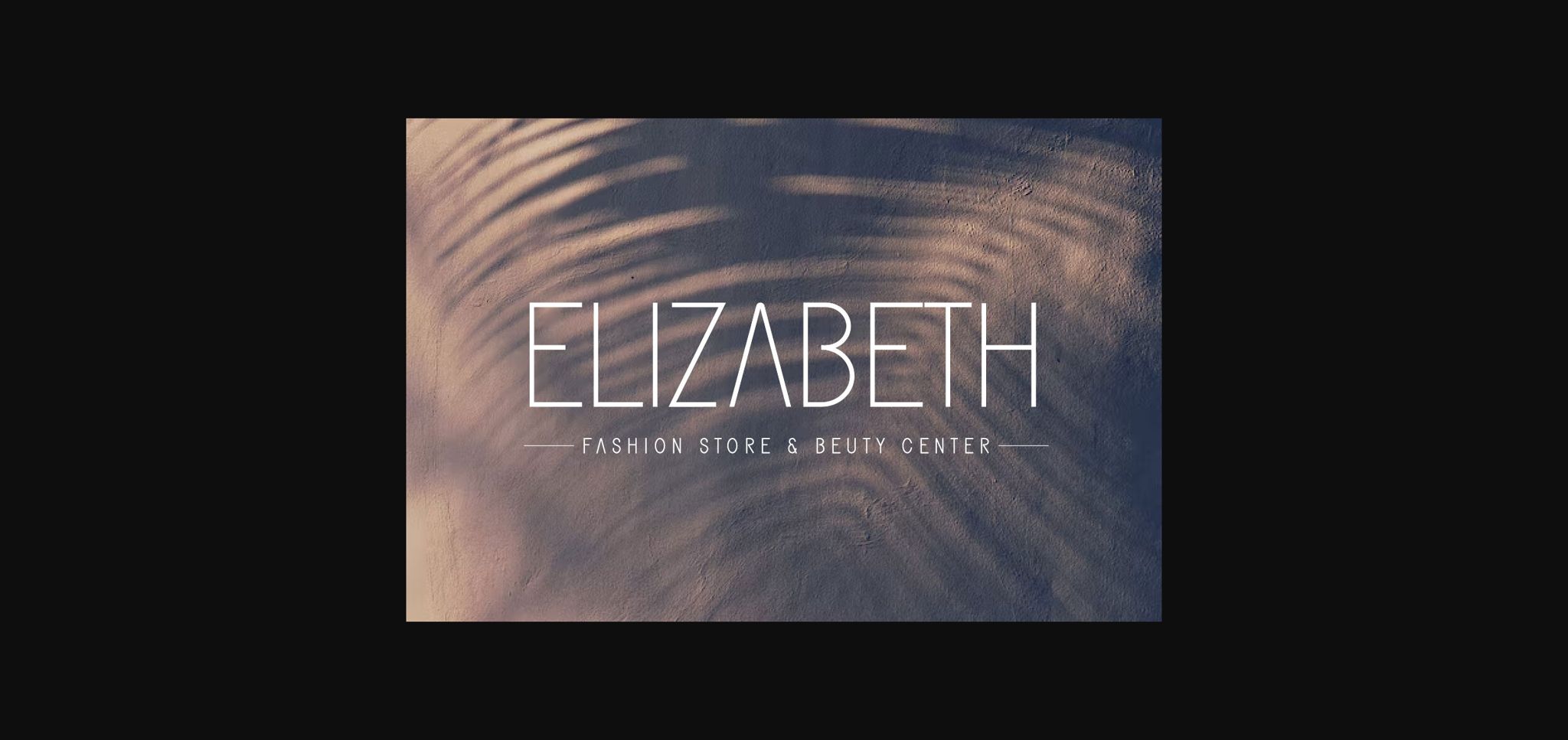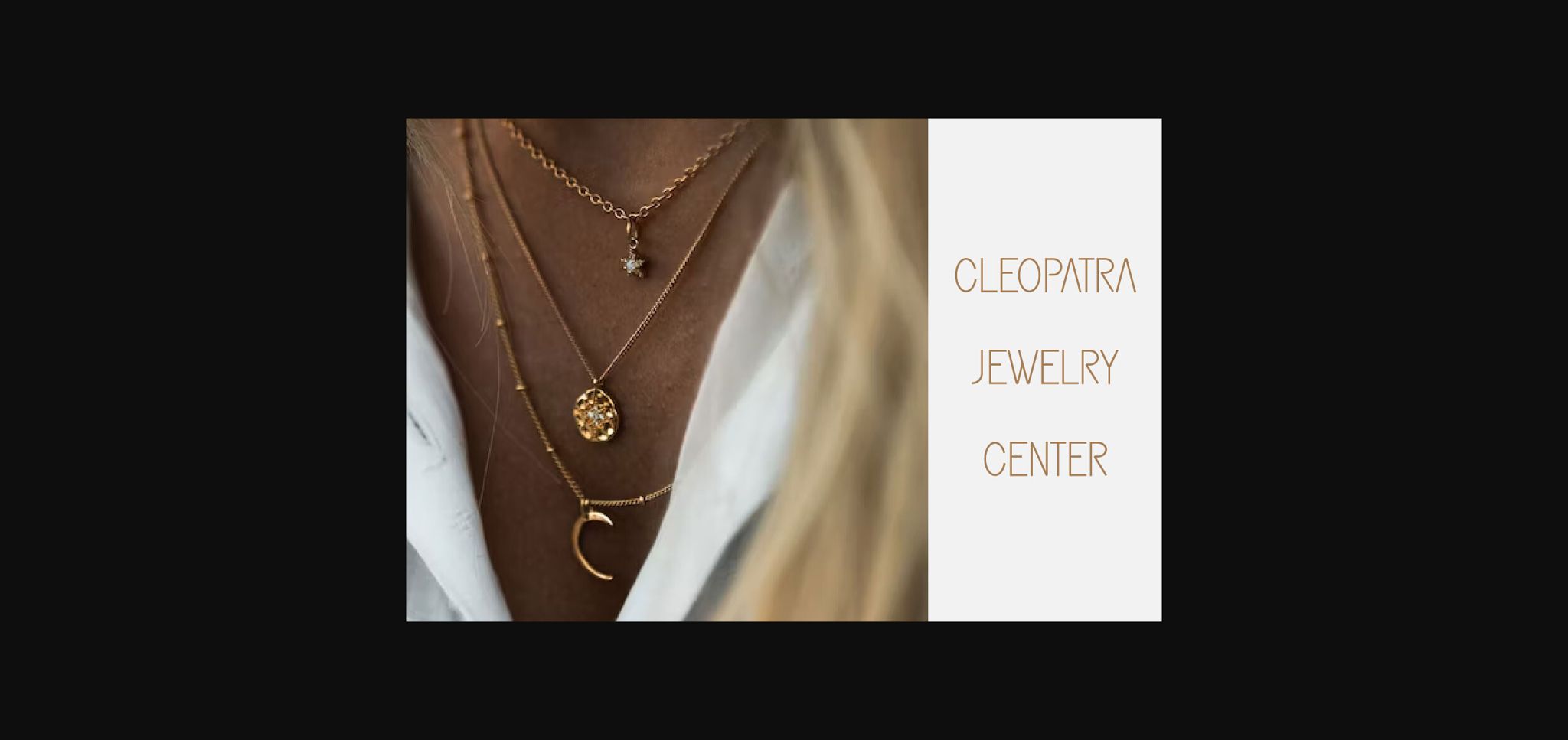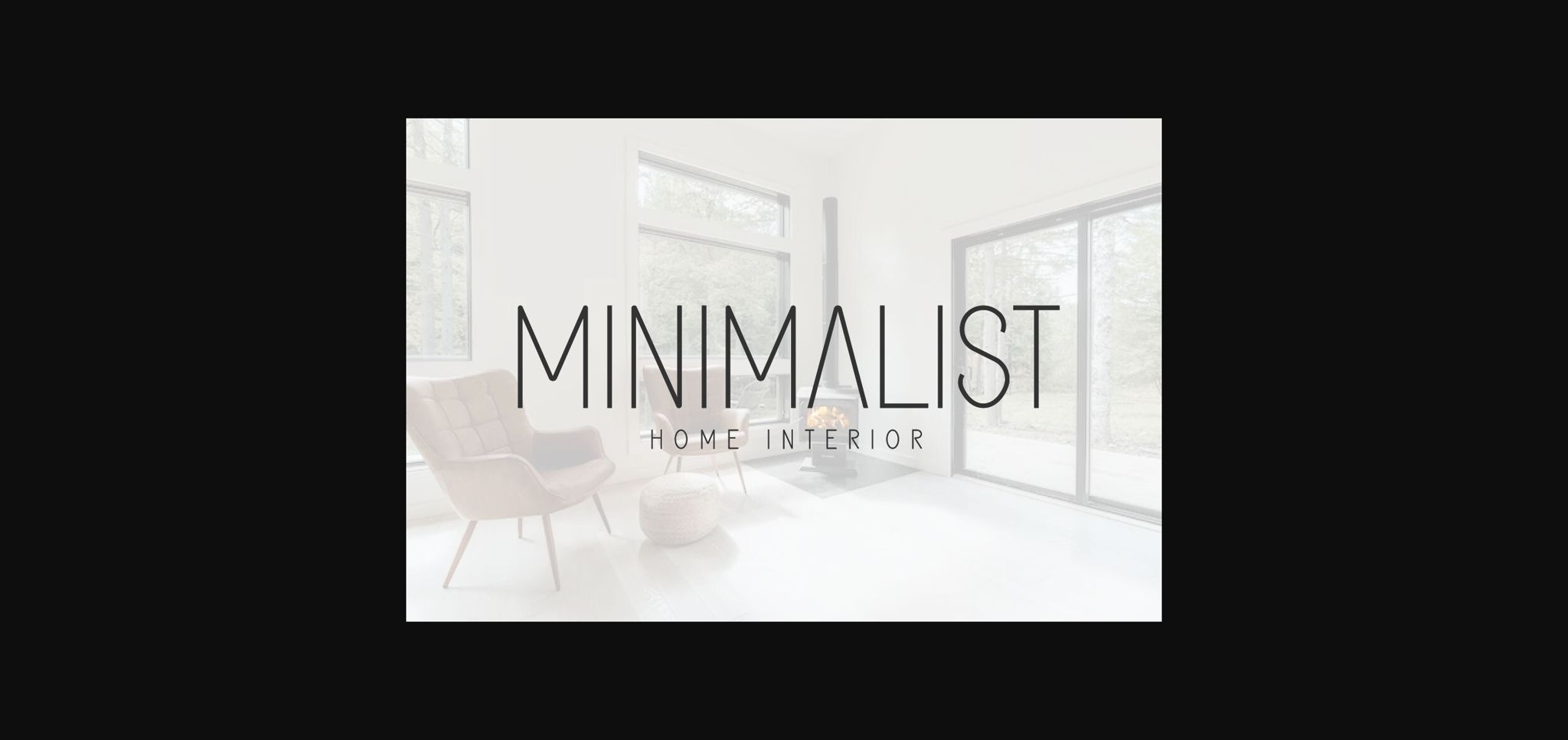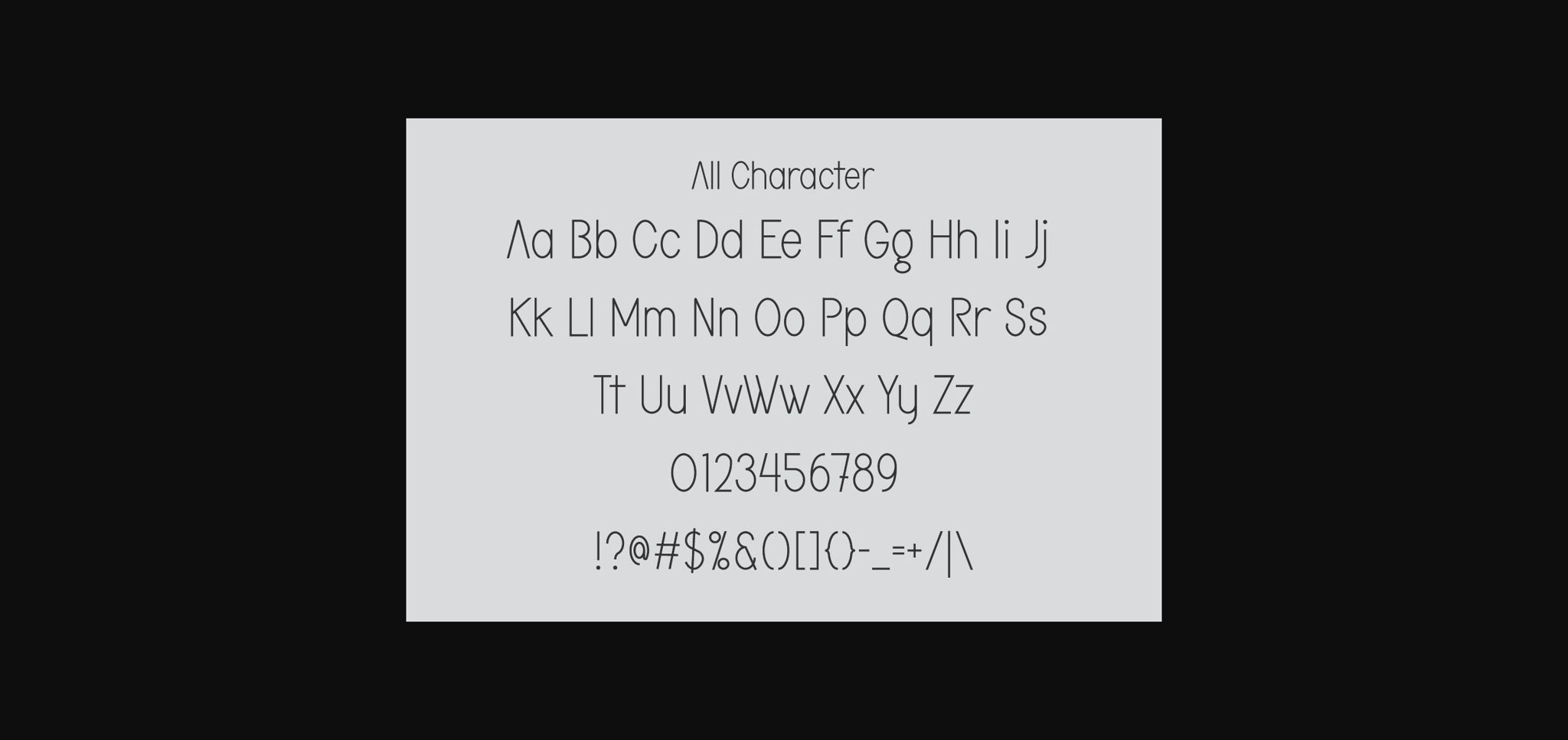
About Floral Crown Font
Floral Crown is a minimalist and modern sans-serif font designed for a clean retro look. With its vintage balanced proportions, this font is perfect for creating a minimalist aesthetic in product fashion, wedding invitation, magazine, quotes, gift labels, logos, web design, advertising, headings, blogs, branding, and more!